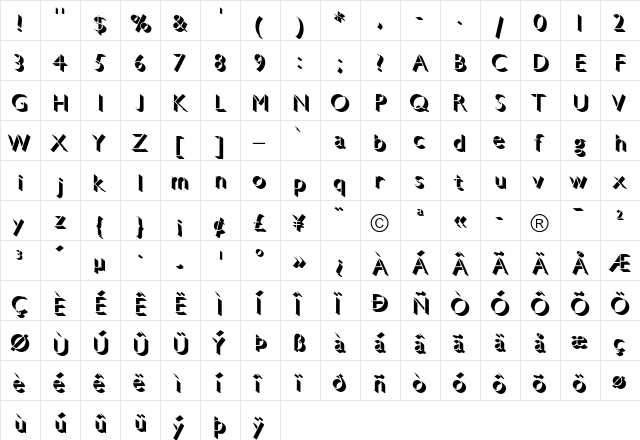
Gill Sans Light Shadowed Font Preview
Gill Sans Light Shadowed
Gill Sans Light Shadowed Font Details
| Style | Light Shadowed |
Design Context for Gill Sans Typeface
Gill Sans brings ornamental detail and strong personality to headlines and identities, where visual impact matters more than quiet functionality. The delicate stroke weight brings airiness and refinement to layouts.
Font Pairing: Pair with a clean neutral sans-serif for body copy to let Gill Sans's character lead without overwhelming the composition.
Pro Tip: Treat Gill Sans as the centrepiece of your typographic hierarchy. One strong heading set in a decorative face can carry an entire layout.